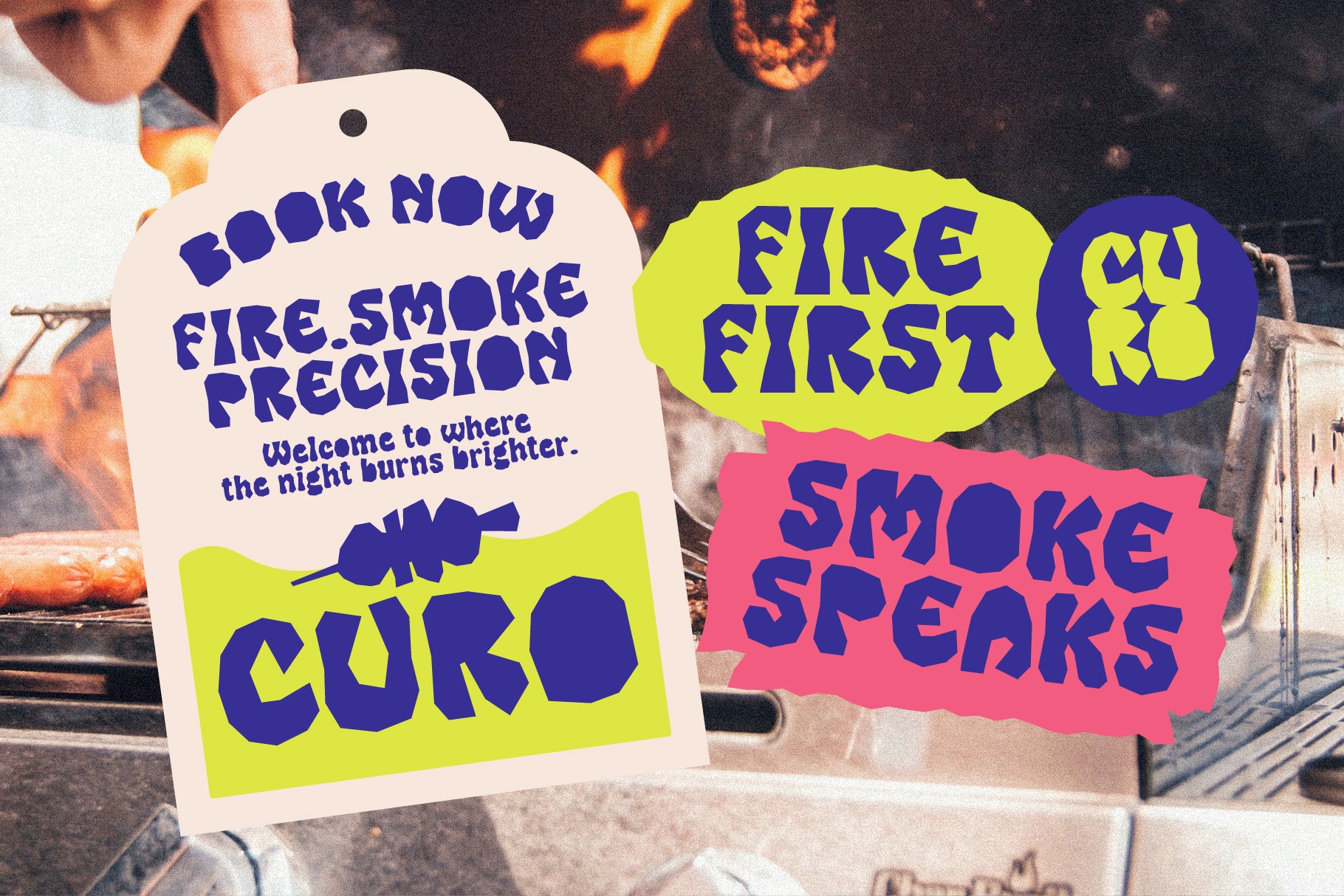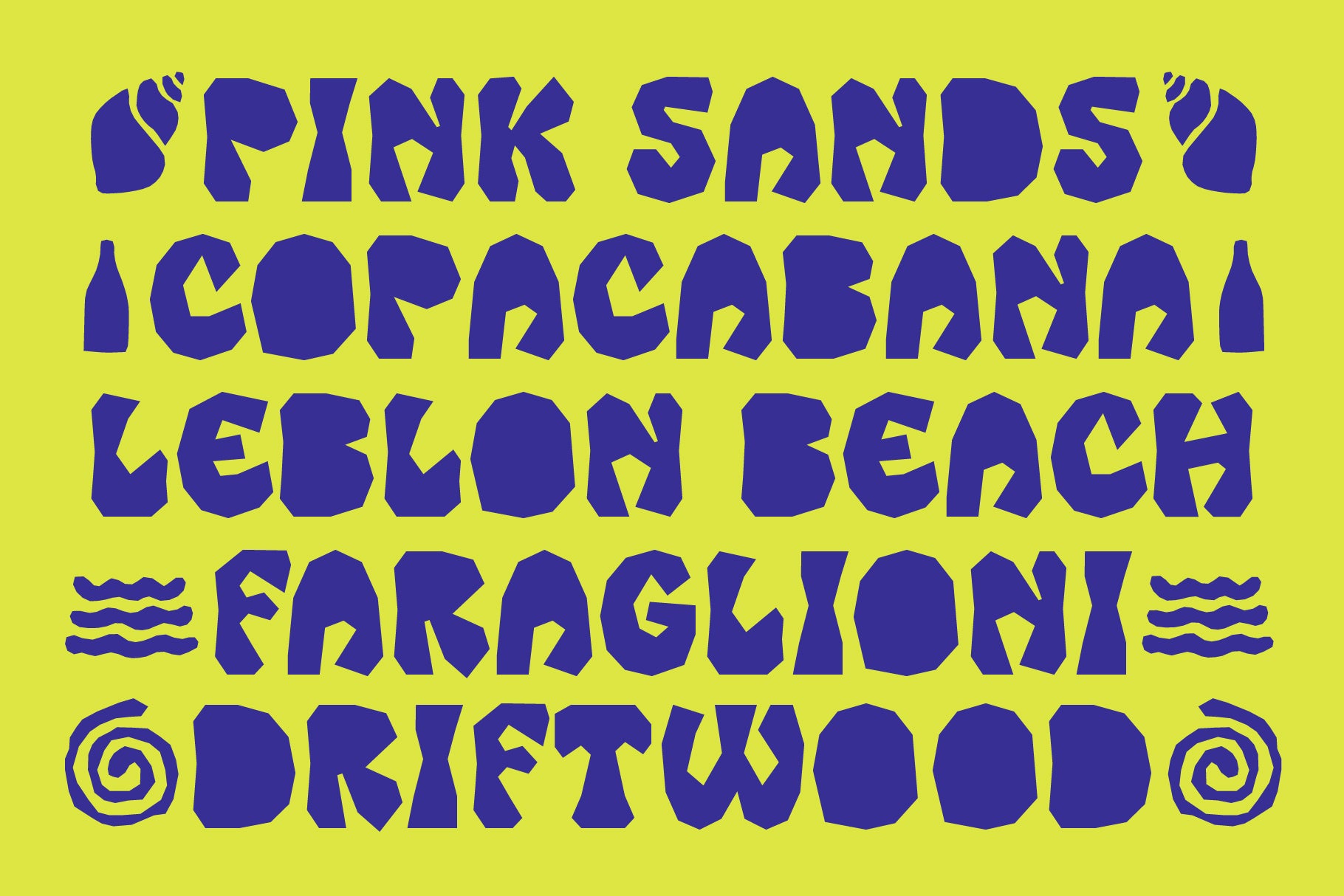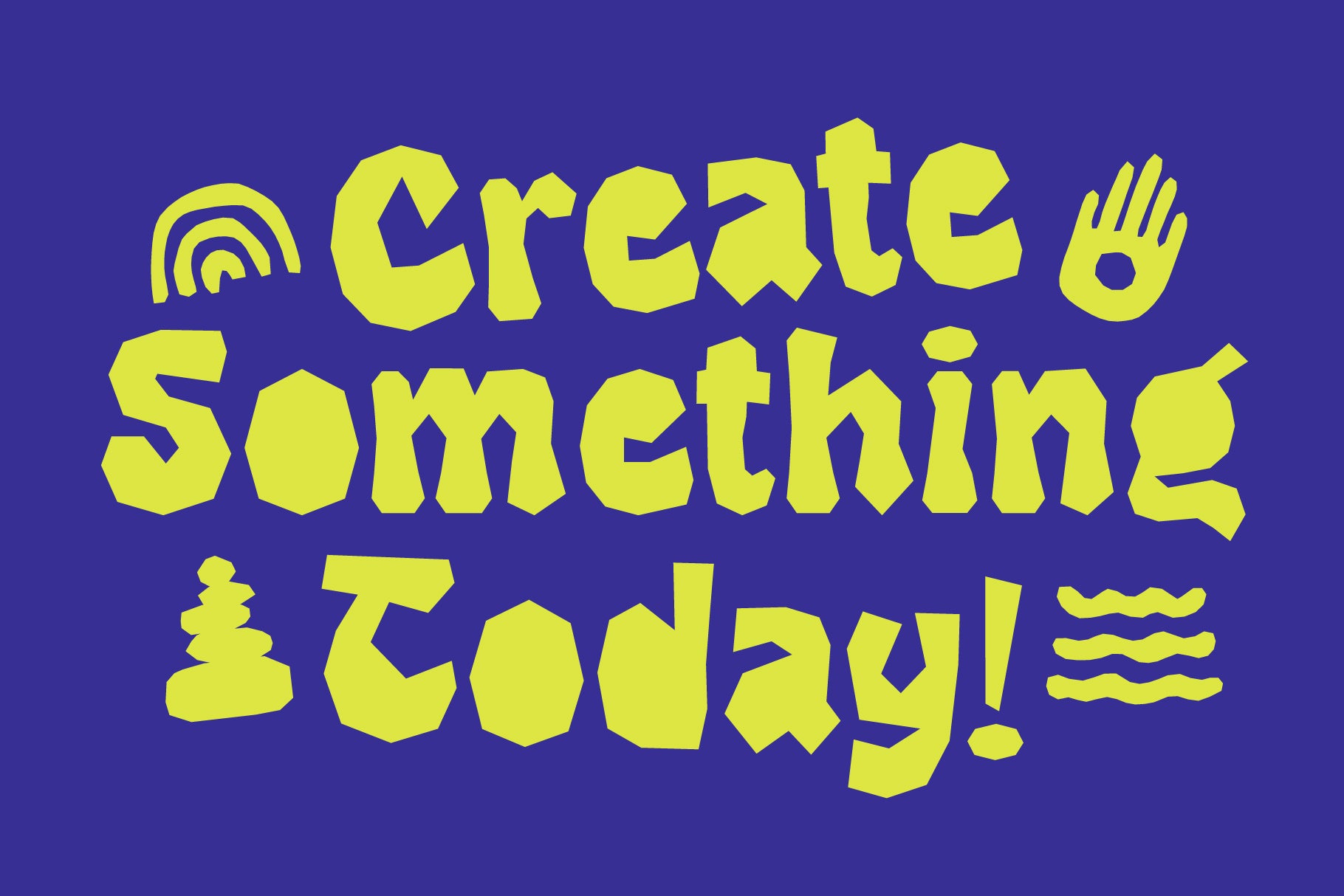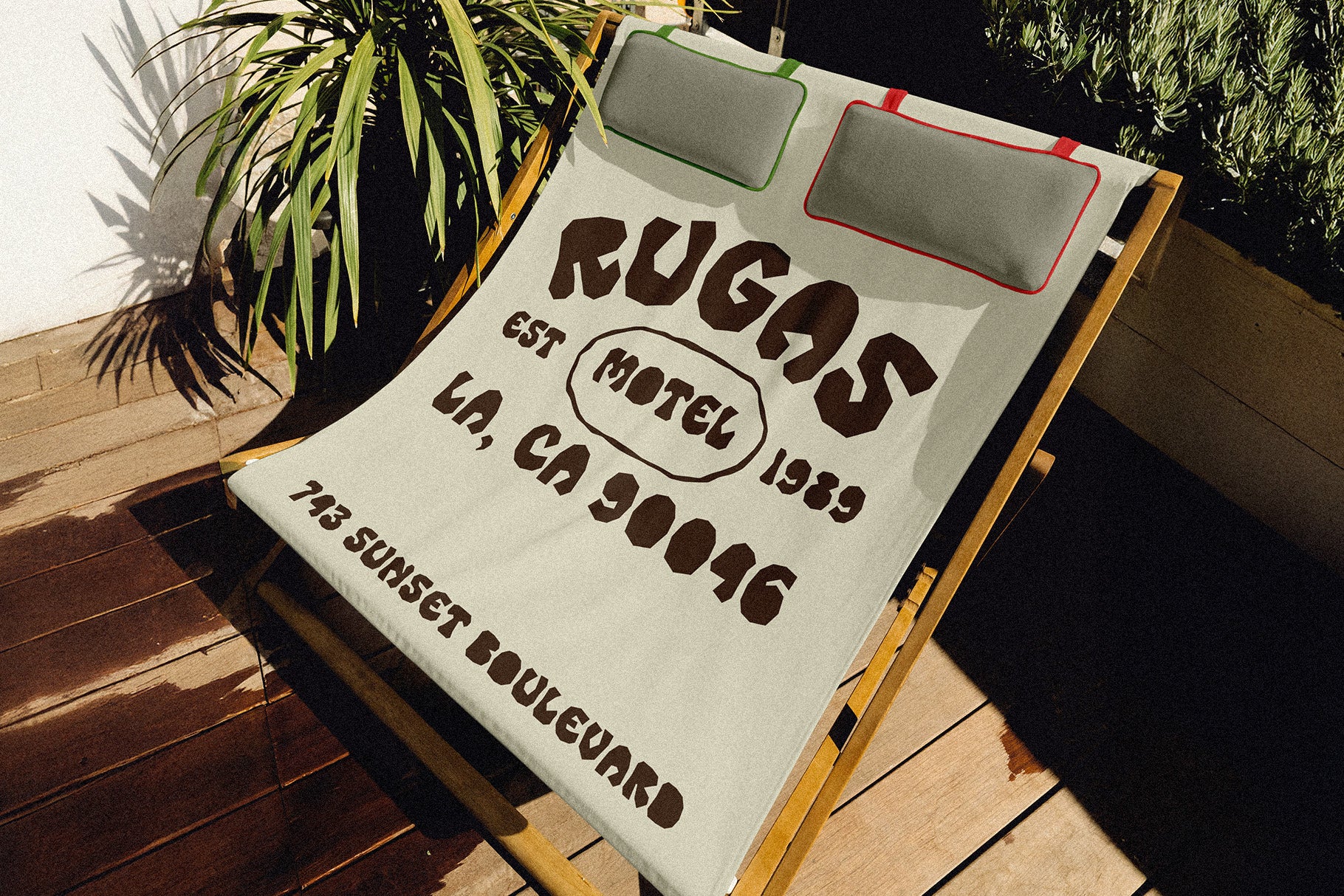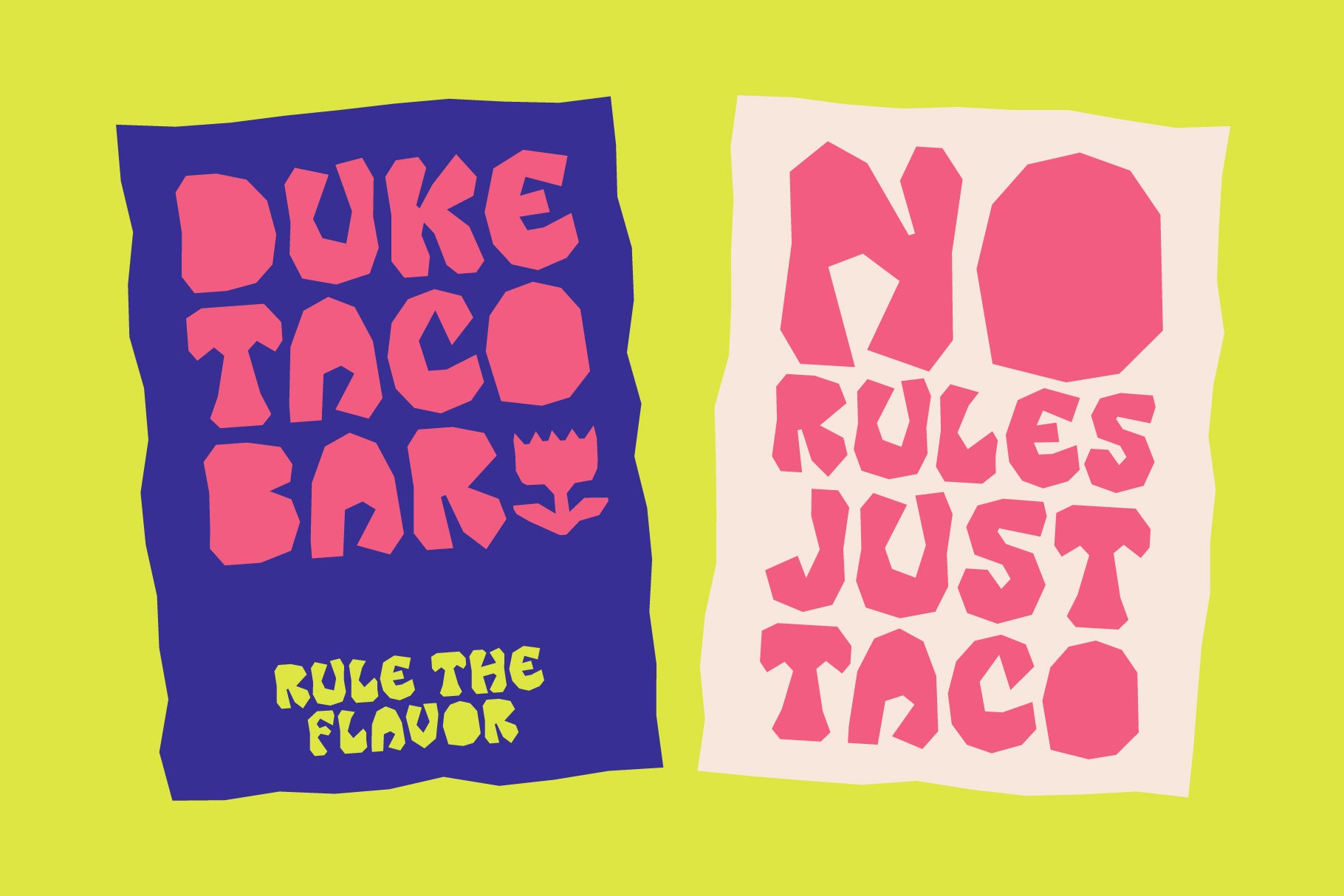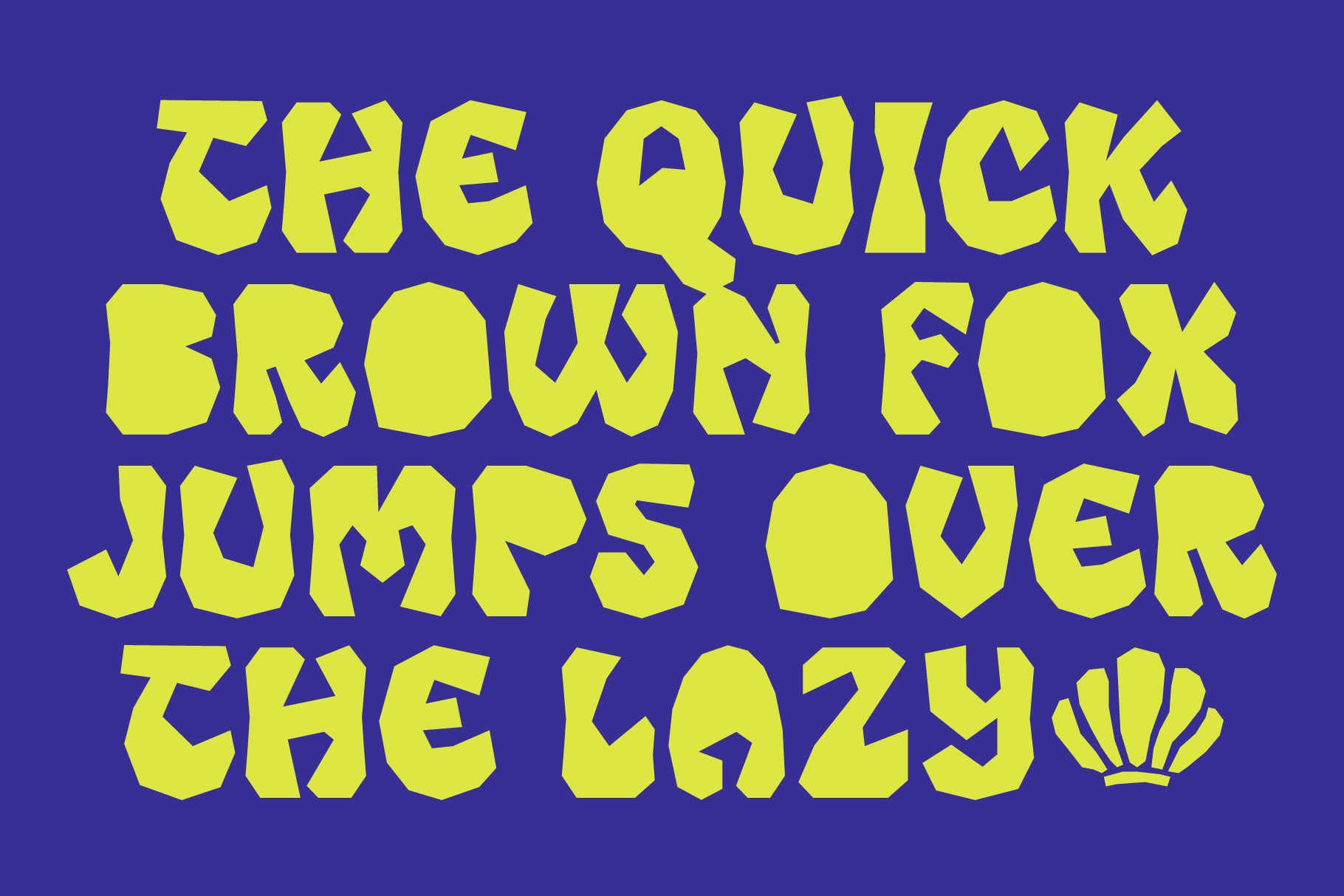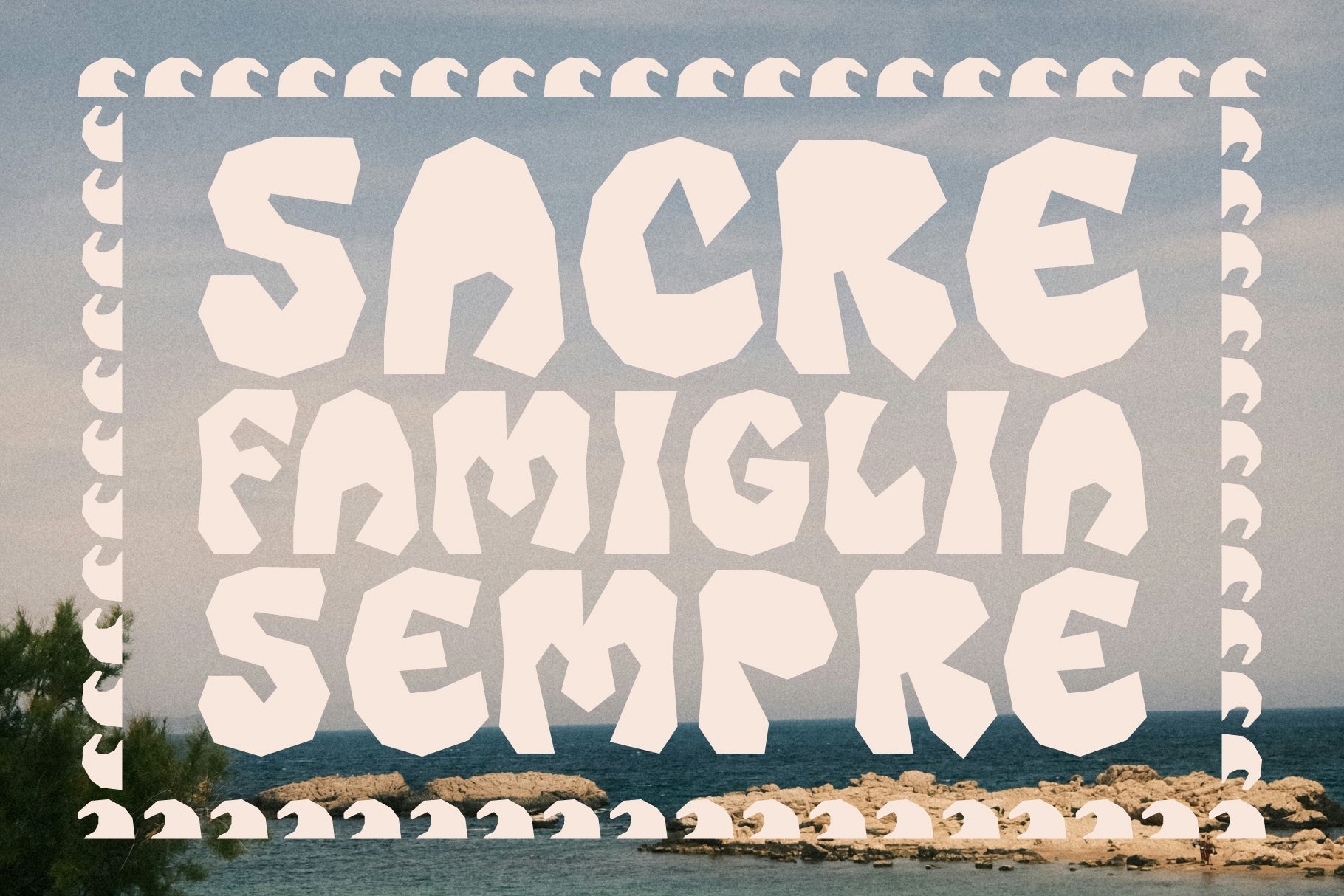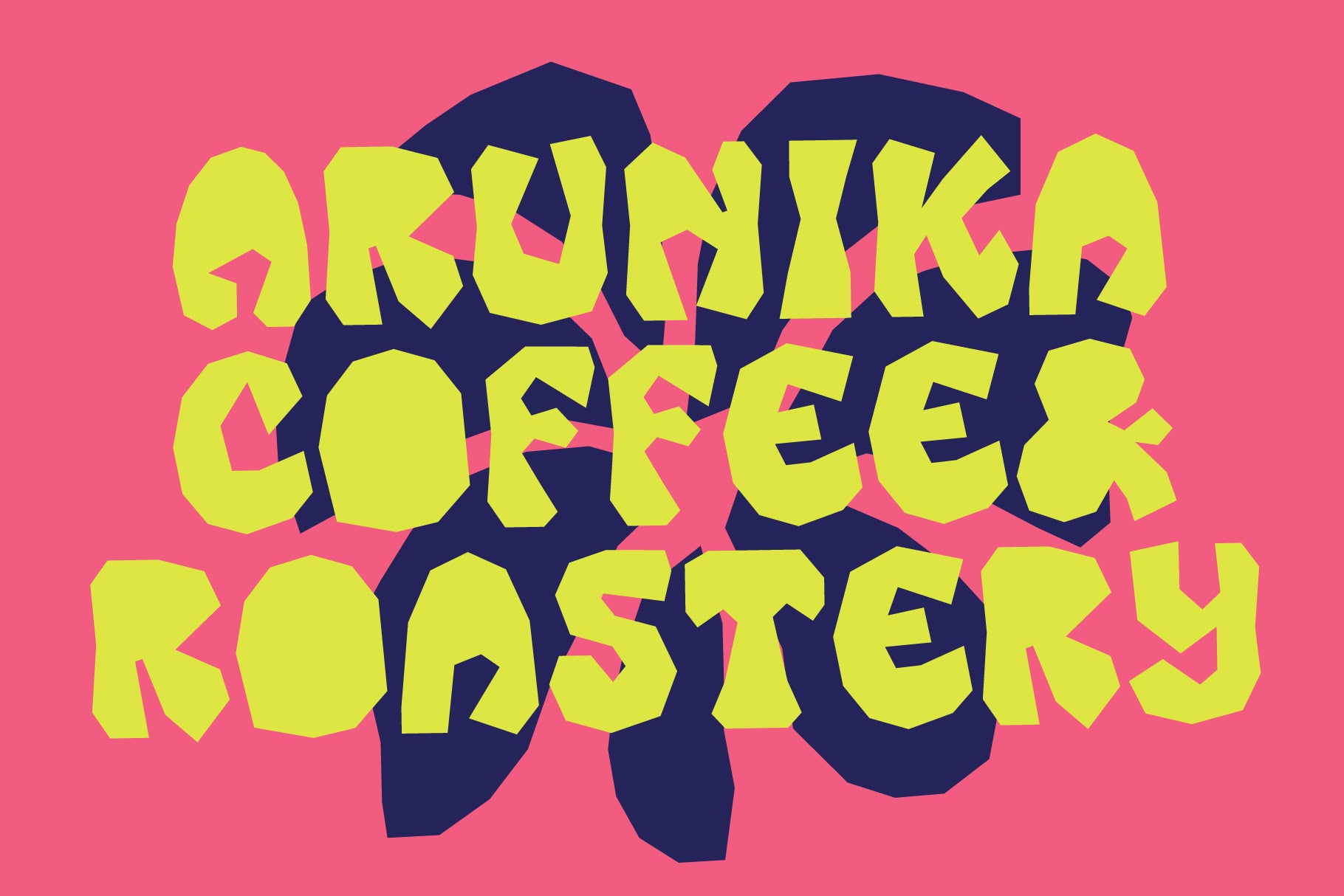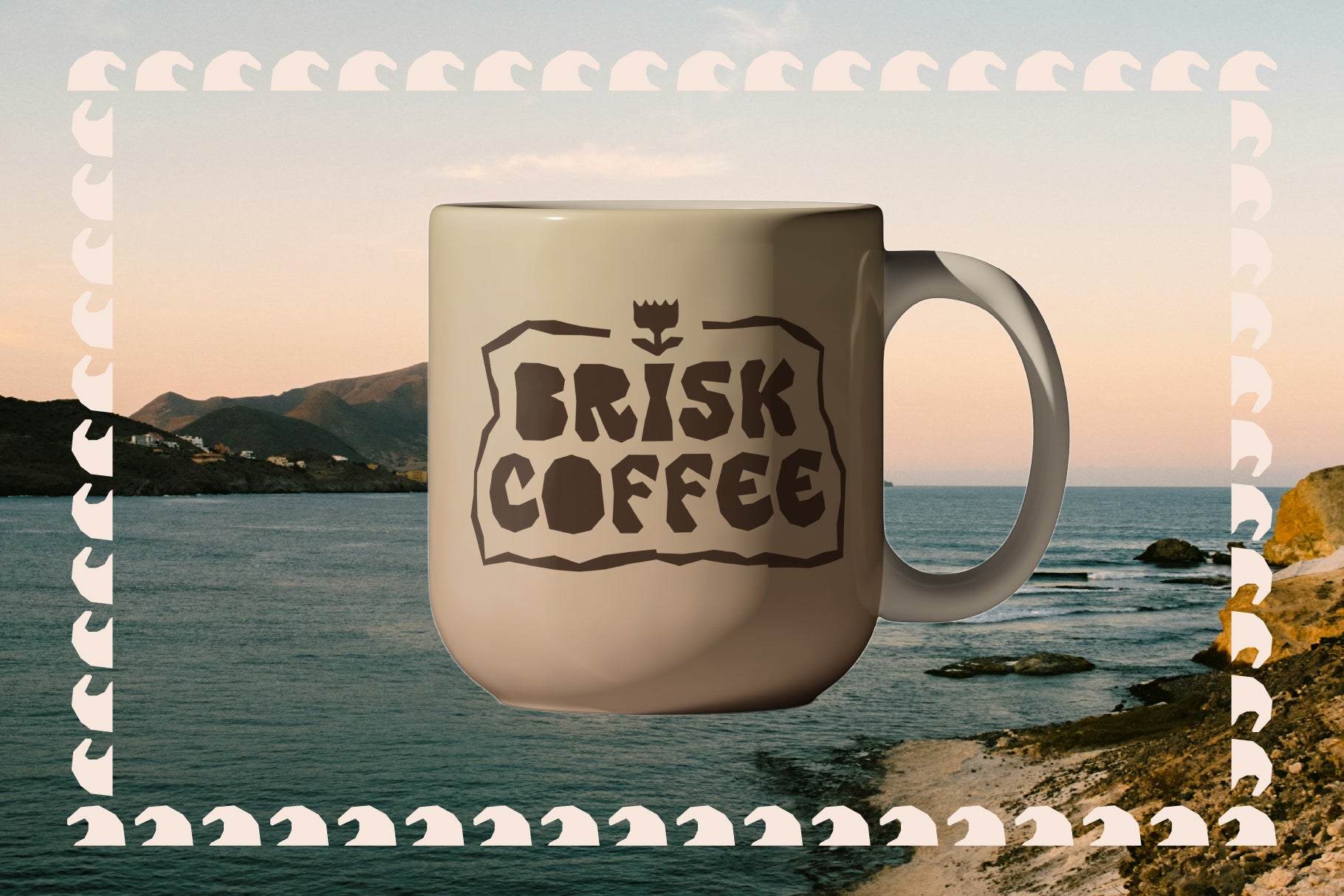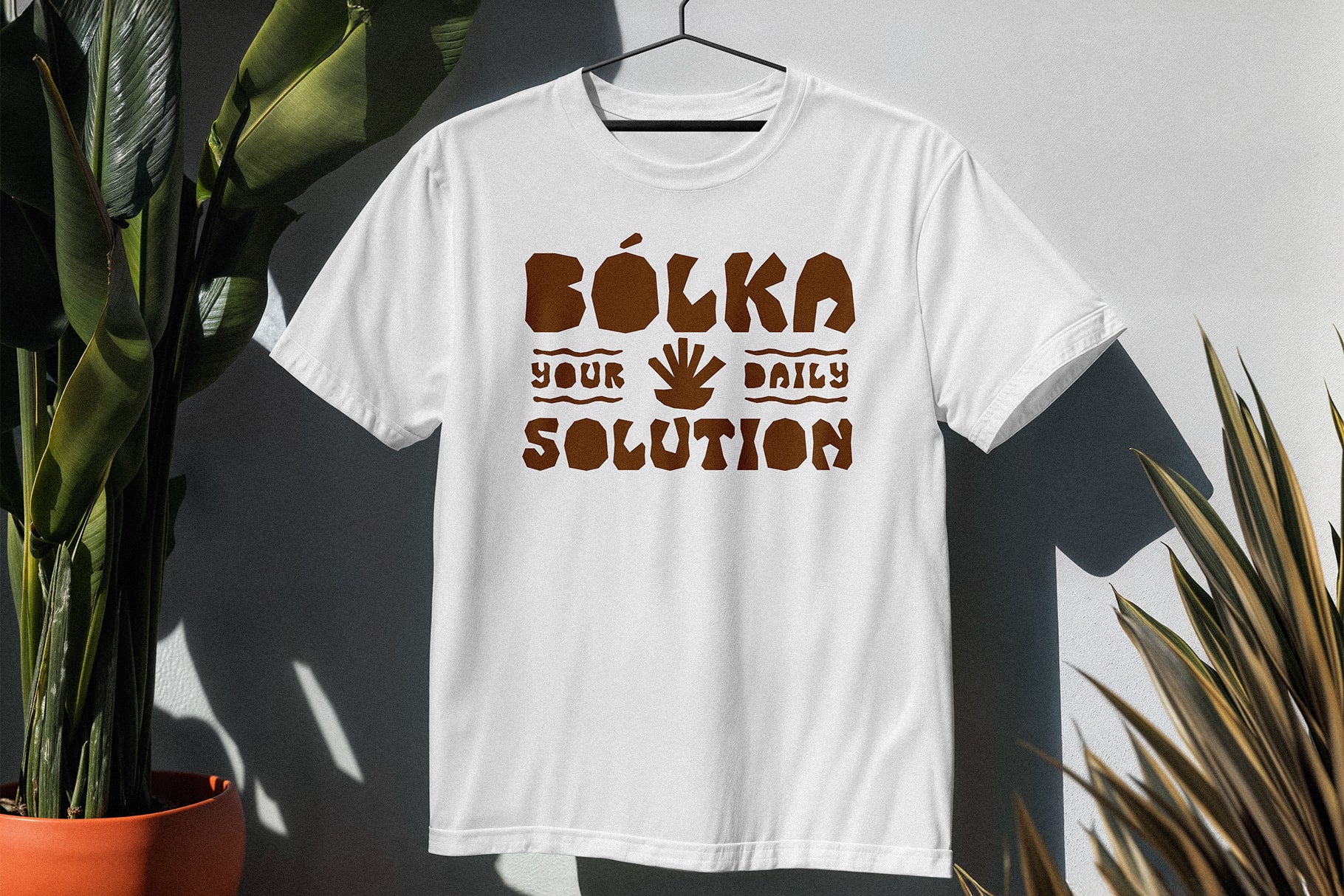
Surfo Cutout Font TNSC
Surfo is a playful cutout display font inspired by vintage beach signage, handmade paper lettering, and tropical street graphics. Chunky organic shapes, imperfect cuts, and a handcrafted construction give it a bold, expressive personality that feels fun, nostalgic, and full of movement — while remaining highly readable at display scale. The irregularity is the point: every letterform carries the kind of human touch that digital precision tends to erase.
Beyond the typeface itself, Surfo includes a collection of tropical-inspired dingbat icons designed to pair naturally with the letters — making it easy to build playful layouts, frame compositions, and create eye-catching designs without reaching for a separate graphics pack.